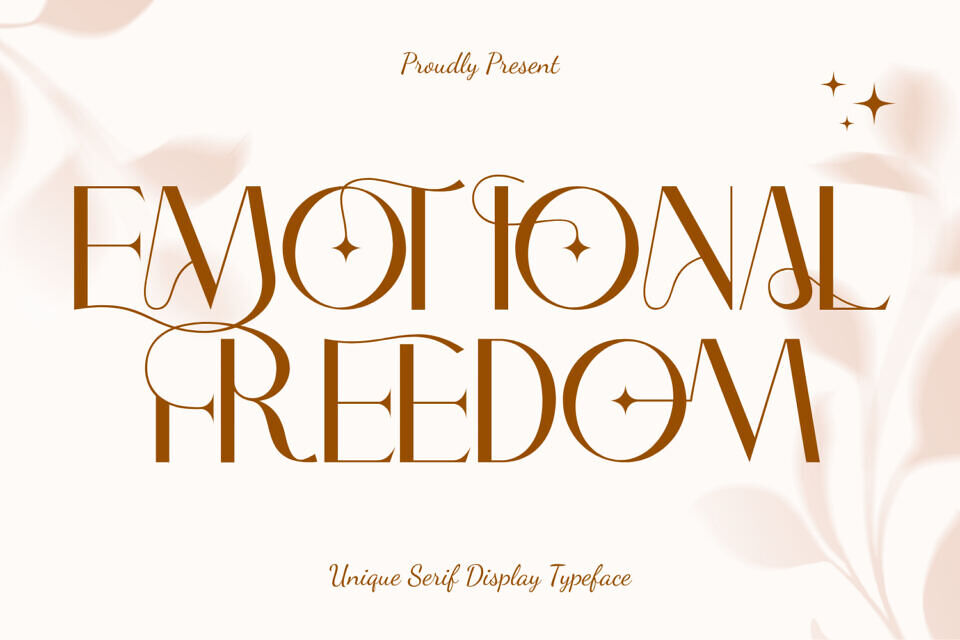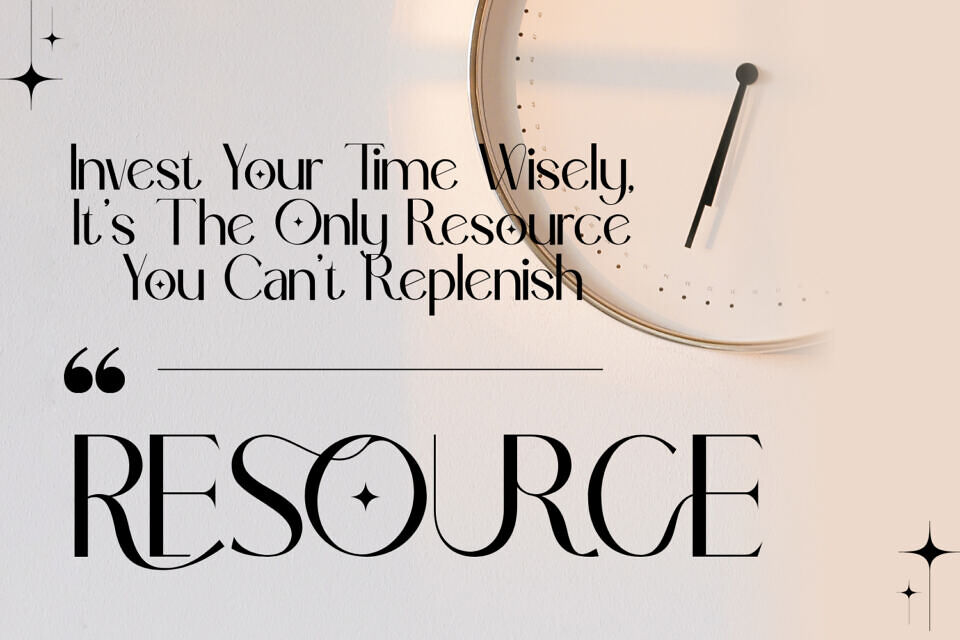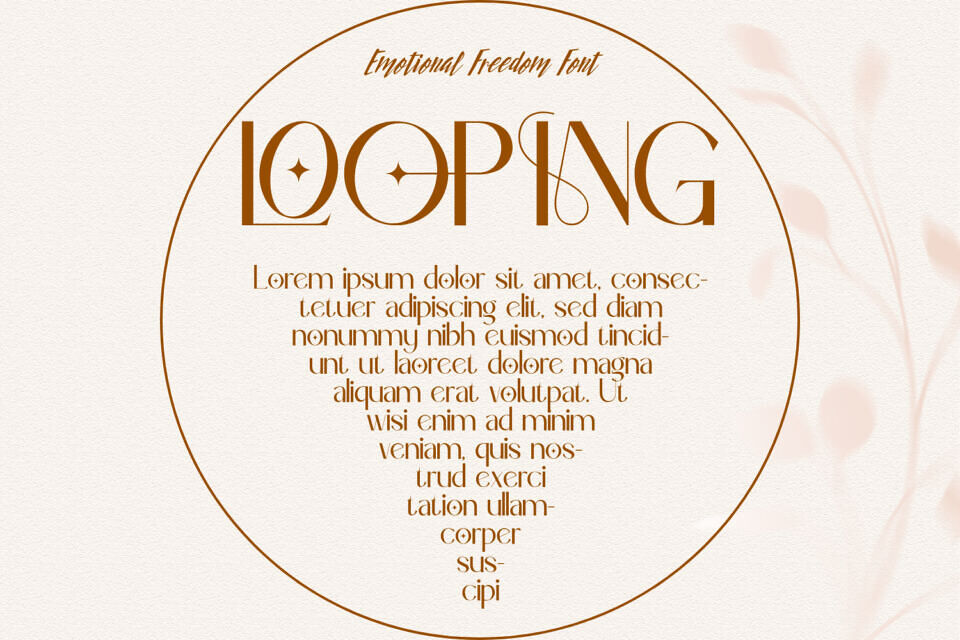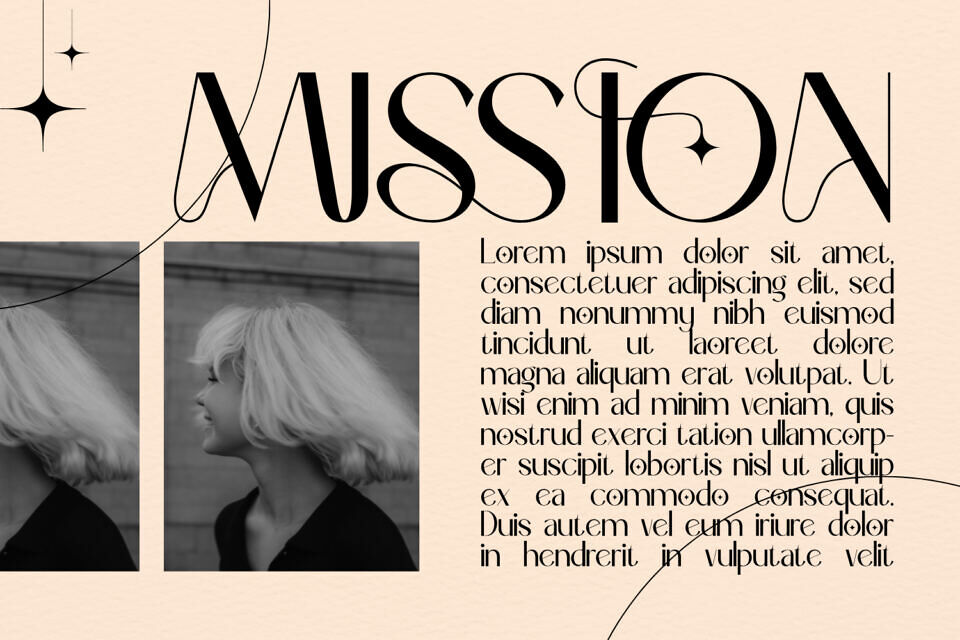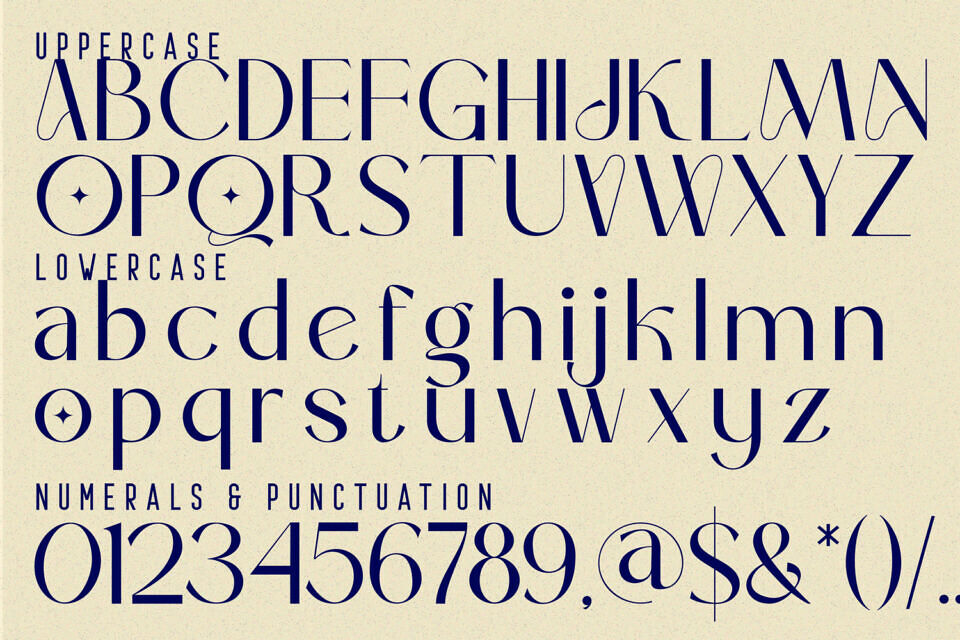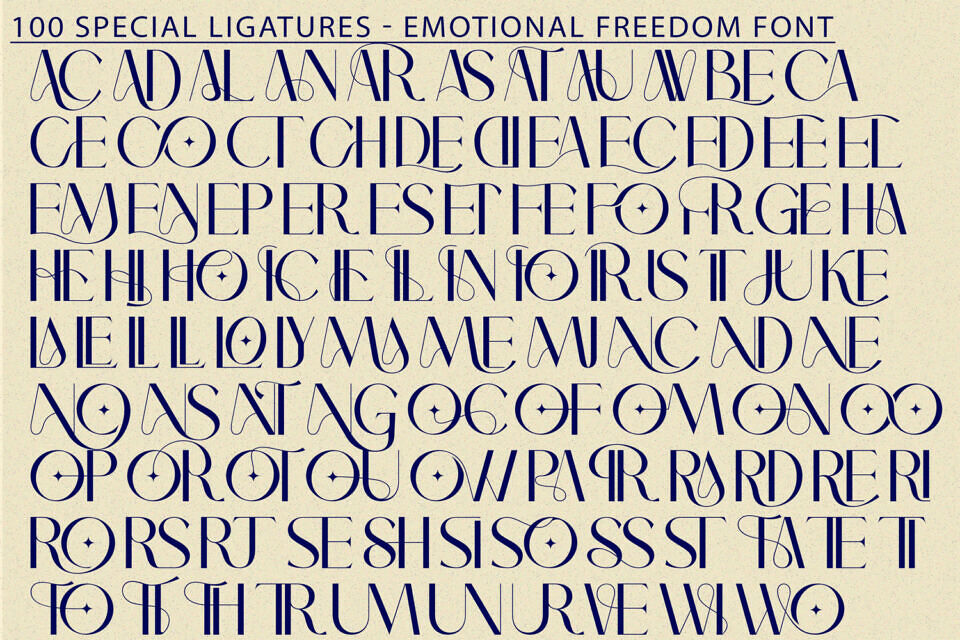
Emotional Freedom Font
Emotional Freedom is a modern decorative serif font that combines minimal elegance with artistic ornamentation. Featuring slender letterforms accented with graceful swashes and star-like diamond details, it adds sophistication and visual interest to any project.
Ideal for fashion branding, editorial design, wedding invitations, book covers, luxury packaging, and creative campaigns, Emotional Freedom effortlessly balances contemporary minimalism with timeless charm.